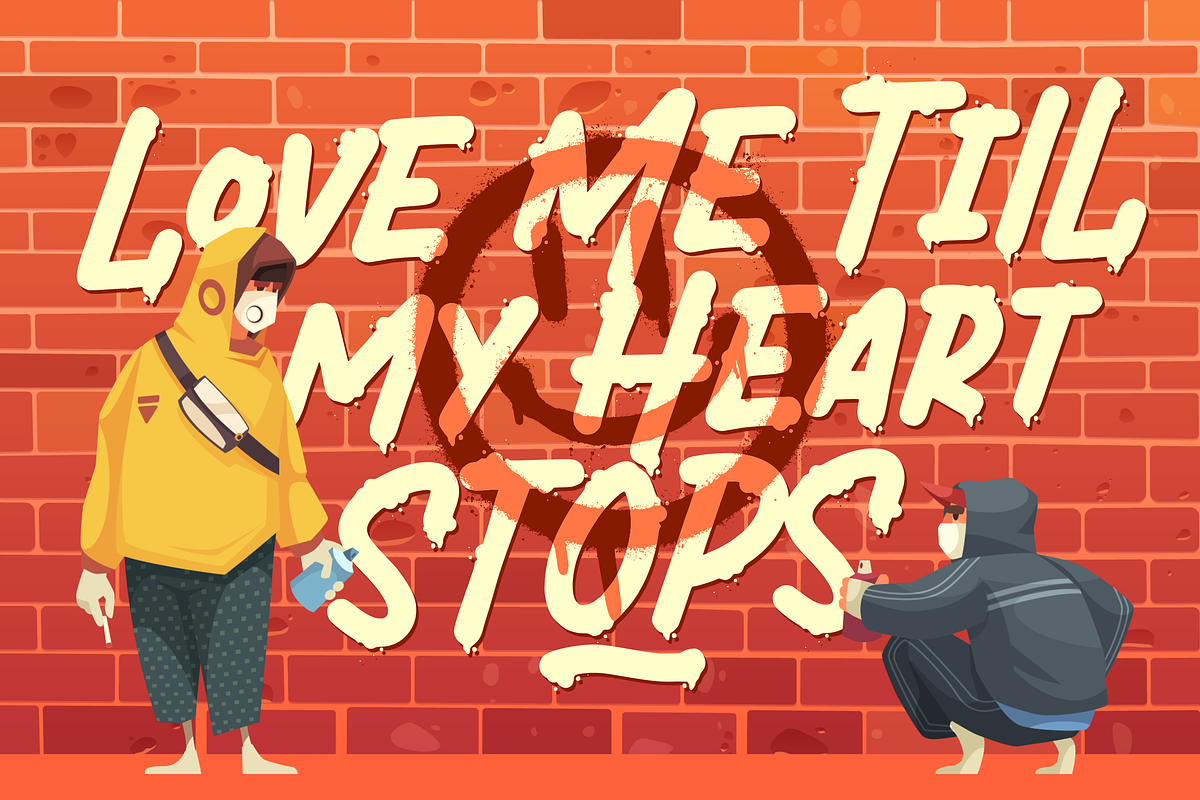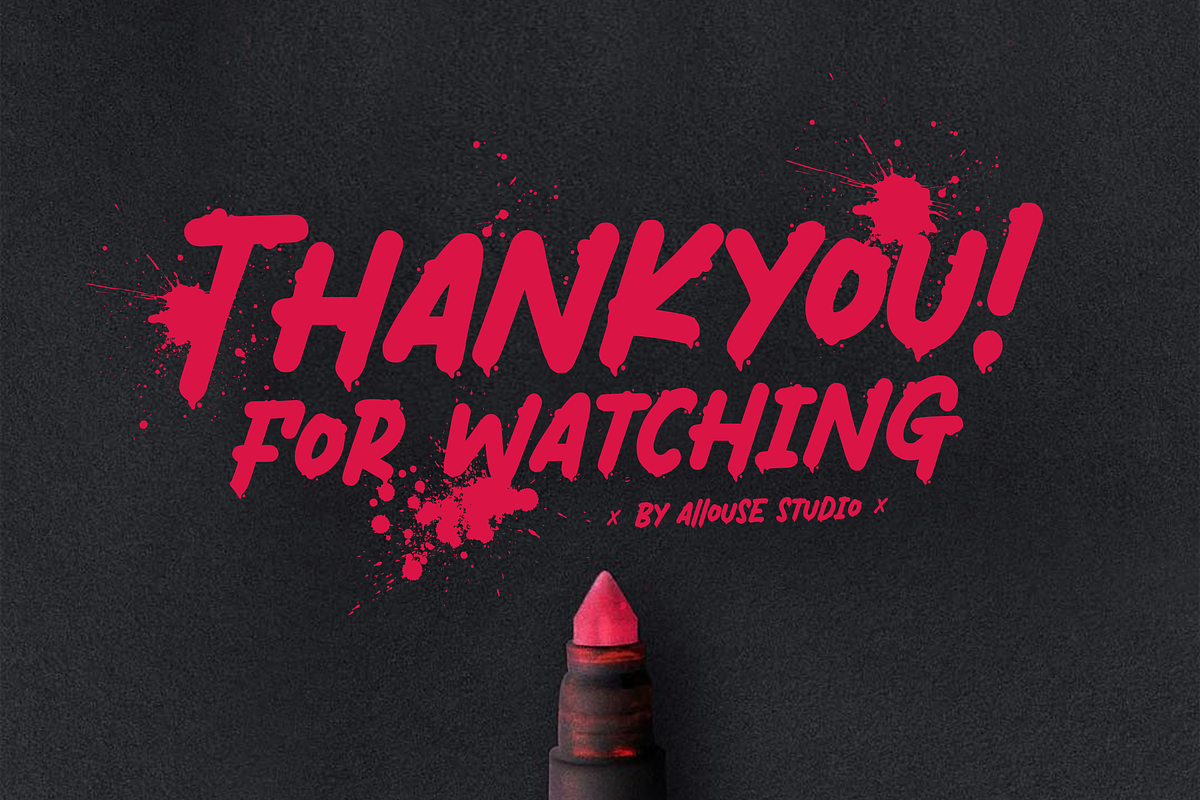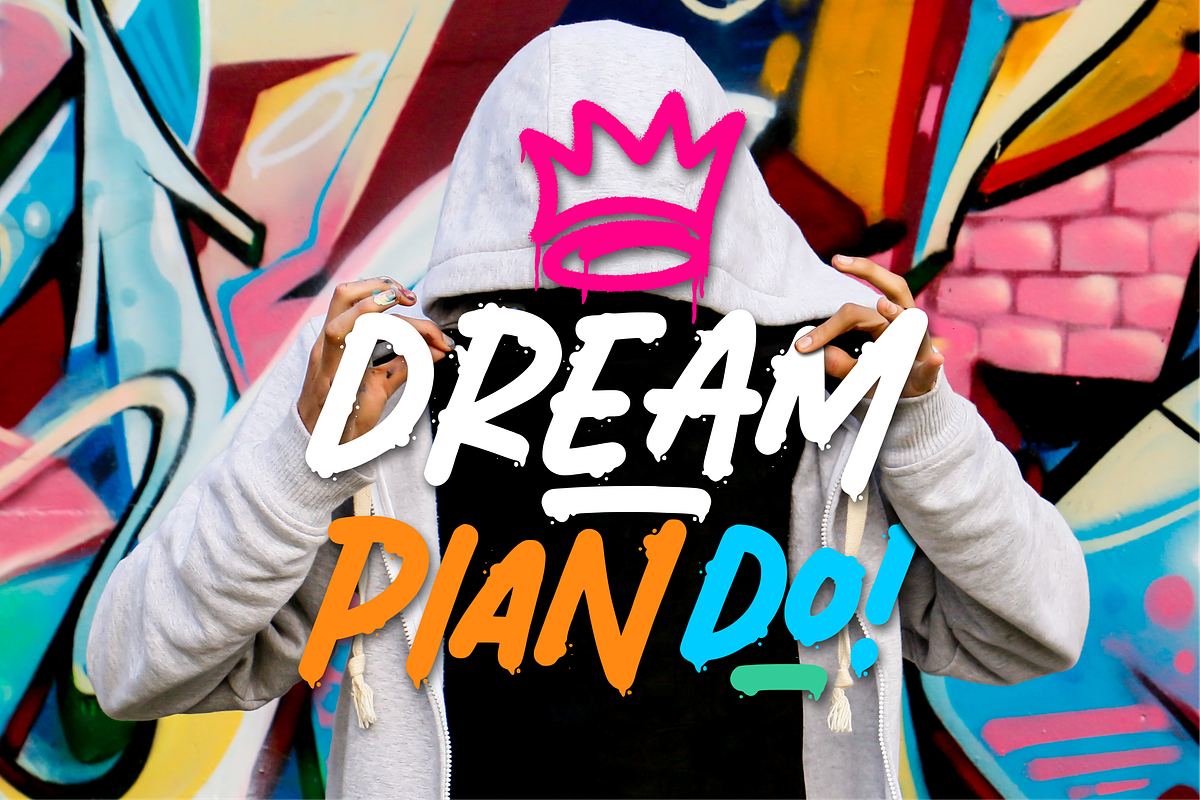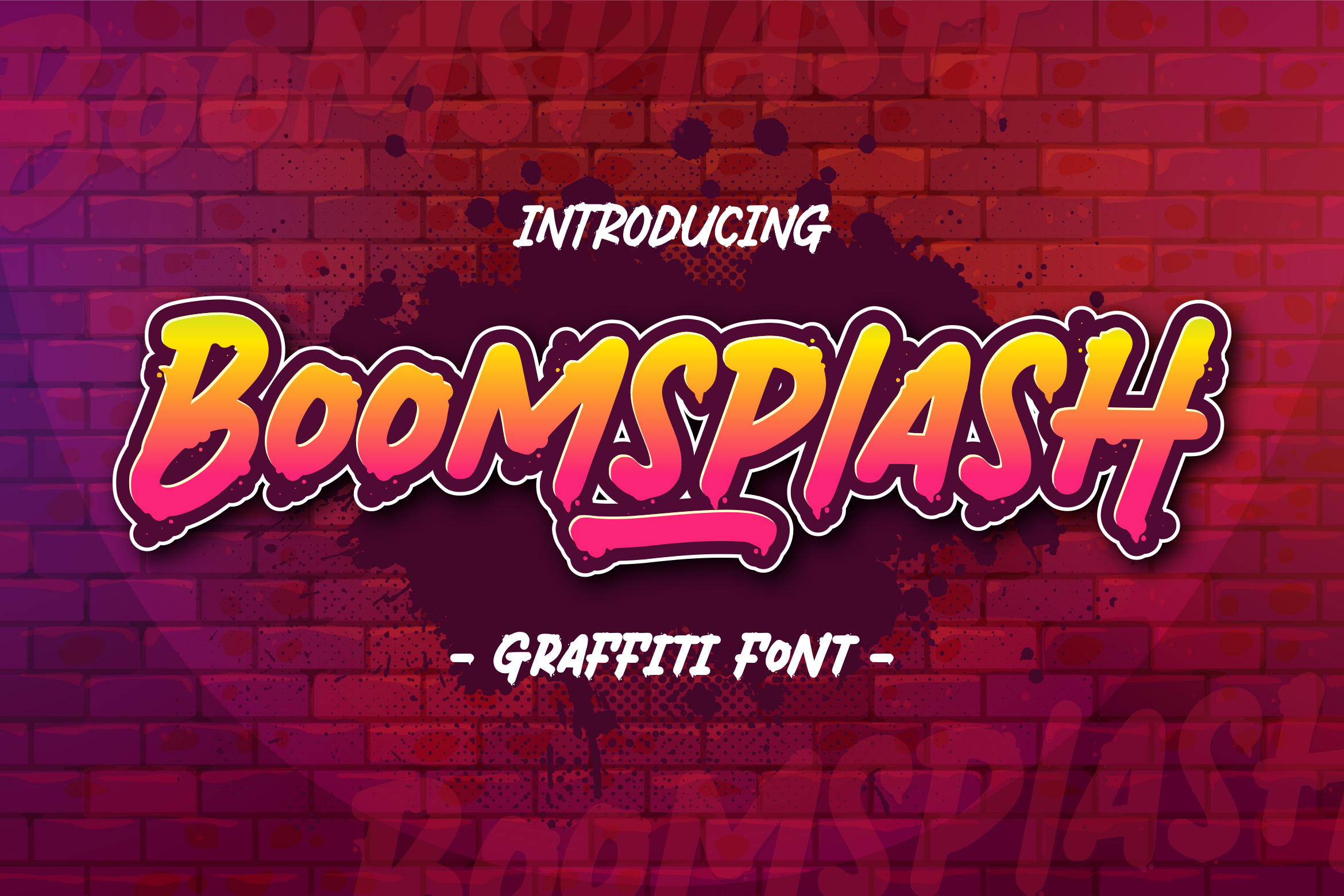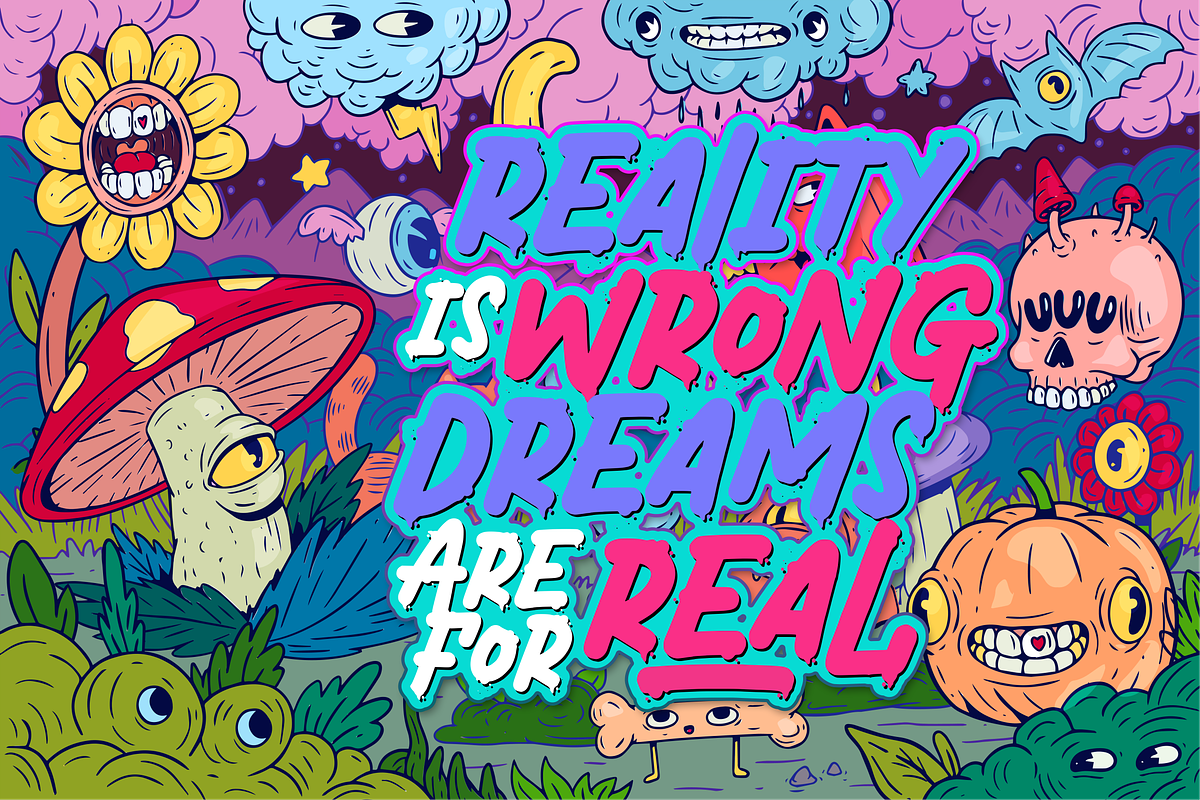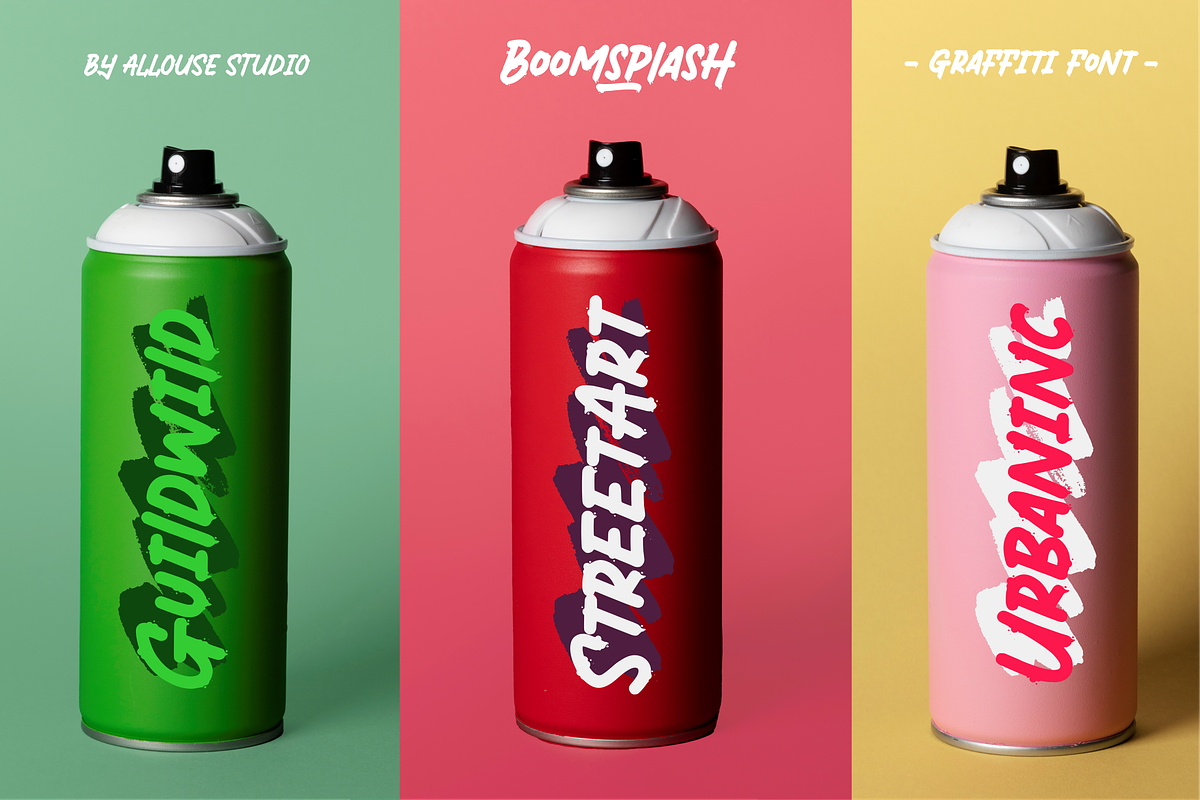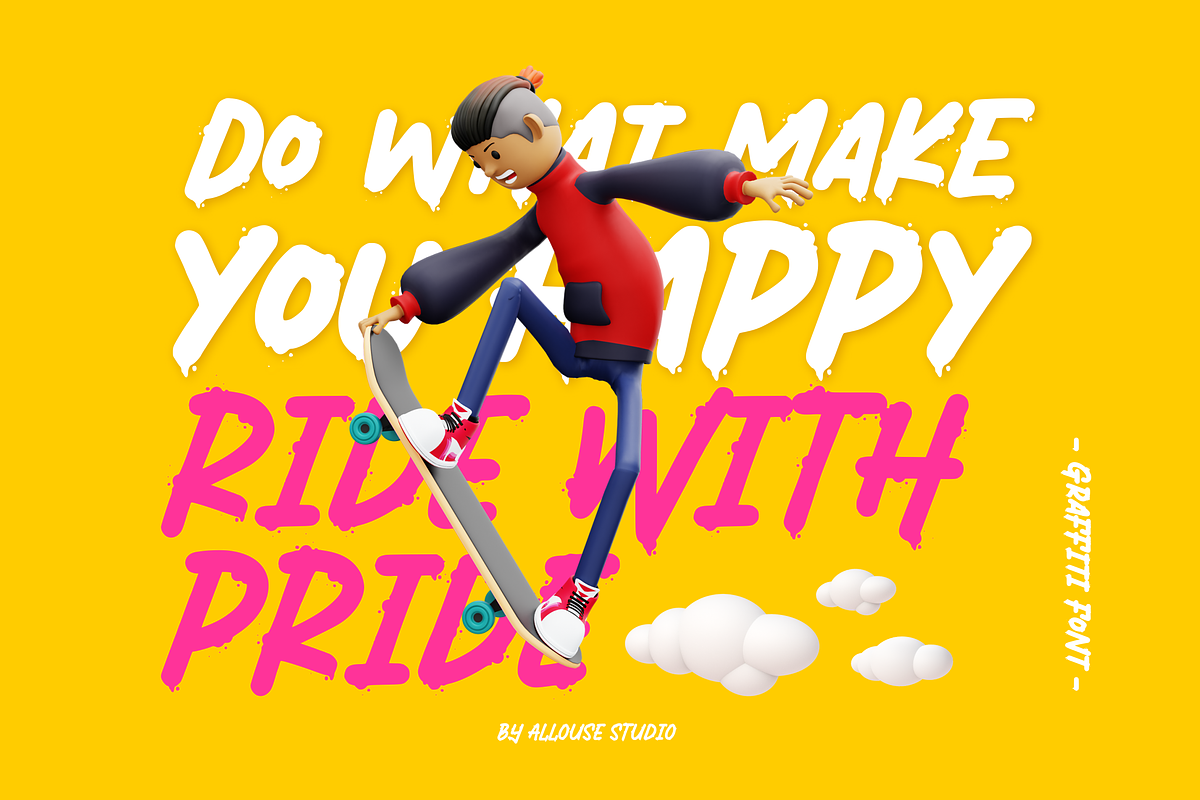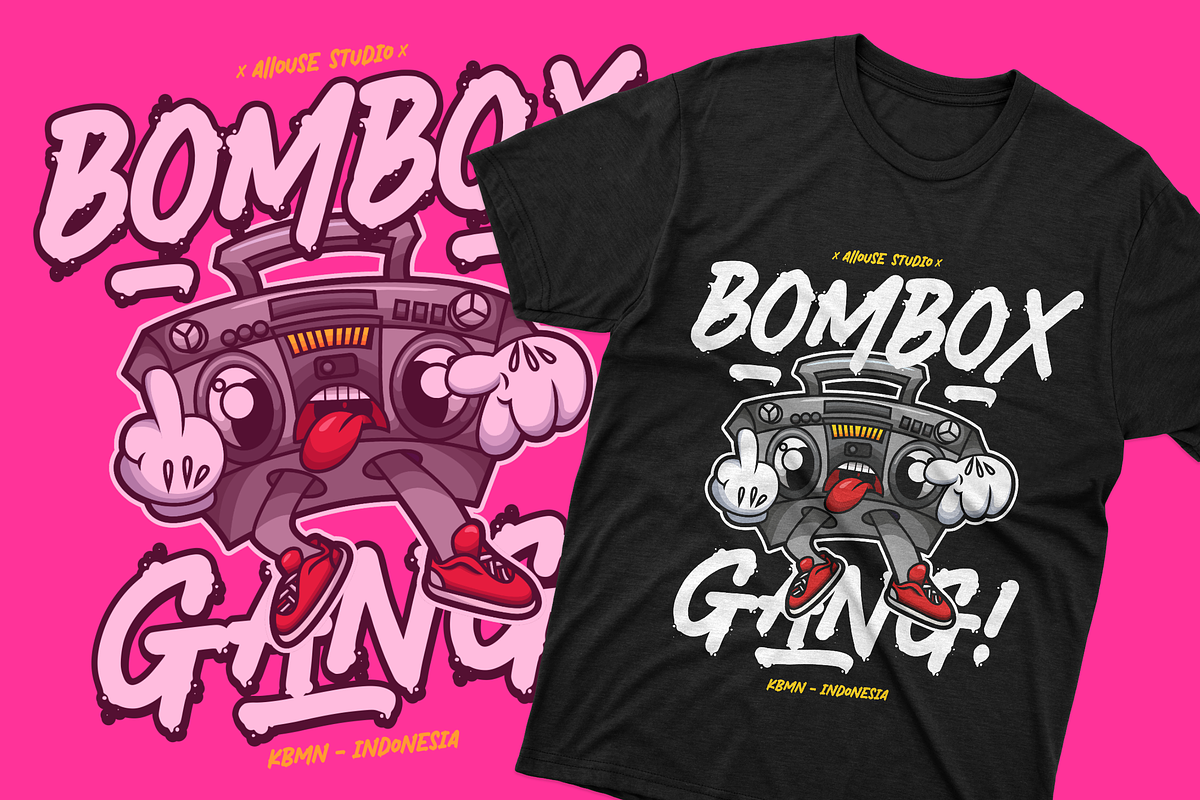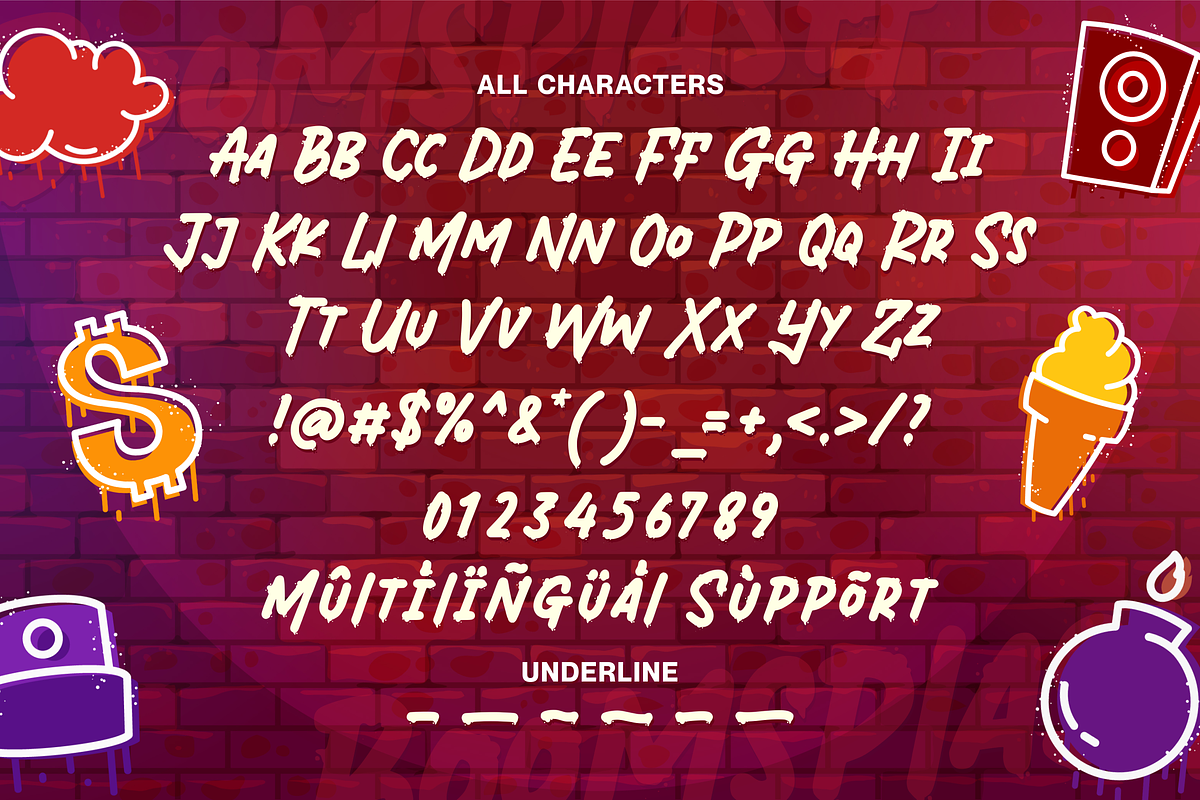
Boomsplash a Graffiti Font
Proudly Presenting, Boomsplash a Tagging Graffiti Font.
Boomsplash is perfect for any titles, logo, product packaging, branding project, megazine, social media, wedding, or just used to express words above the background.
Boomsplash also come with Multi-Lingual Support.